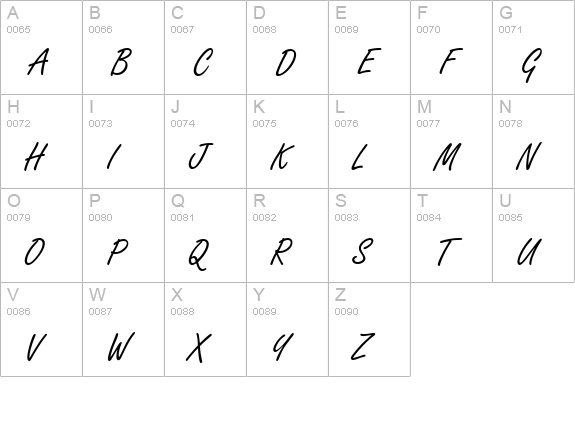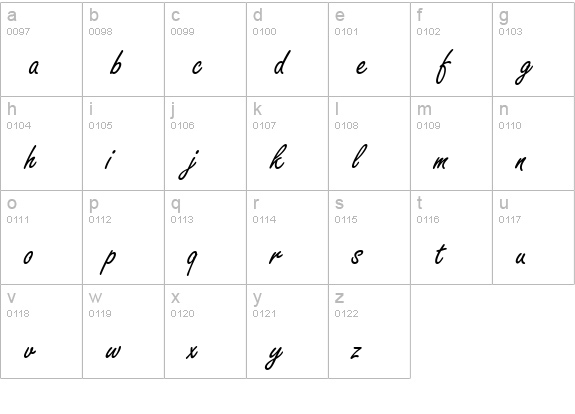
HandmadeScript-Regular Font Details
HandmadeScript-Regular is the standard, neutral variant in the HandmadeScript typeface family \xE2\x80\x94 well suited to general body text, paragraphs, and standard typographic work.
HandmadeScript-Regular font is a charming and whimsical typeface that brings a touch of handmade authenticity to your designs. With its hand-drawn aesthetic and playful curves, this font exudes warmth and friendliness, making it perfect for a variety of creative projects. Whether you're working on invitations, greeting cards, posters, or branding materials, HandmadeScript-Regular adds a unique and personal touch that sets your designs apart. Its organic and flowing letterforms capture the essence of handmade craftsmanship, giving your text a warm and inviting feel. Best of all, HandmadeScript-Regular font is free to download at FontsMarket.com, allowing you to easily incorporate this delightful typeface into your projects without any cost. So go ahead and infuse your designs with the charm and character of HandmadeScript-Regular font today!